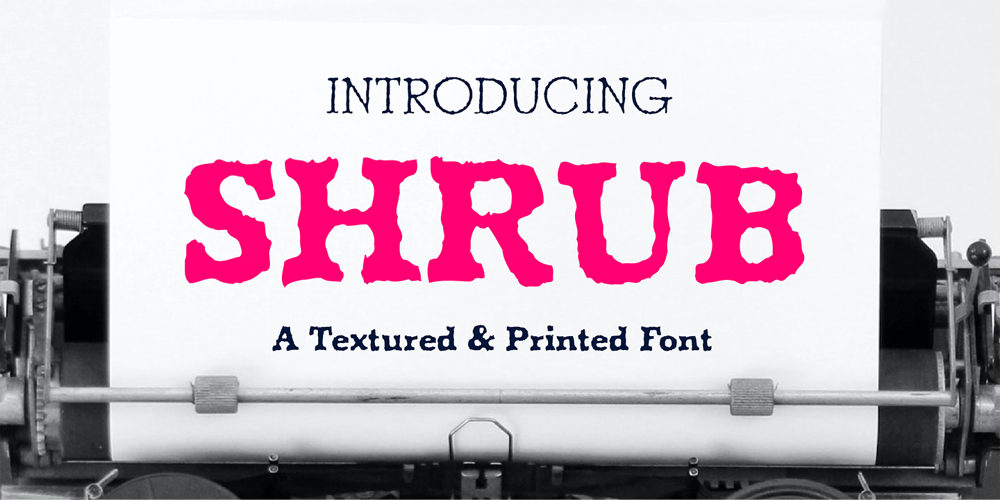
Shrub
Shrub font
Shrub Font Family was designed by Chank Diesel and published by Chank. Shrub contains 2 styles and family package options. The new OpenType font Shrub feels like a printed, textural typestyle, influenced by the great slab-serif fonts of the 20th century and organic, messy effects of old Xerox copiers. You might call this one a “multi-messter font” because it not only comes grainy and coarse, but also features a special stylistic alphabet set to add extra schmutz as you see fit. Users of Adobe’s Creative Suite applications can access this feature as either “Stylistic Set #1” in InDesign or “Stylistic Alternates” in Illustrator. The extra blotches can be turned on or off as you see fit. Put a little organic texture mixed with old-school legibility to make you flyers and other designs look like they were really printed! Shrub speaks with a compelling, grounded personality in a voice that’s easy to read.